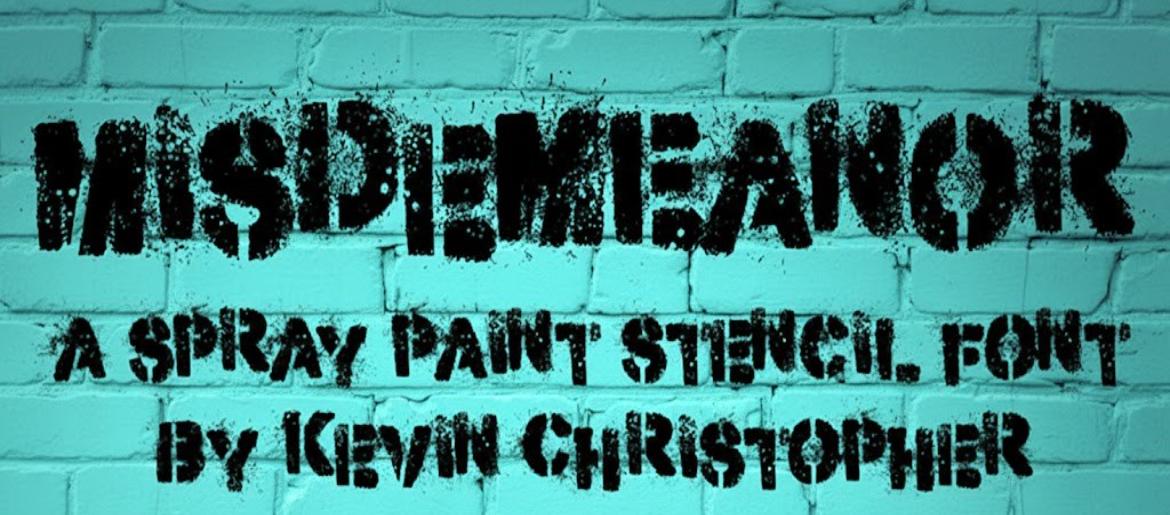
Misdemeanor Font
Misdemeanor Font is a stencil-style graffiti typeface inspired by Banksy aesthetics and street art culture. With rough edges and rebellious character, it’s ideal for posters, protest art, album covers, and urban designs that demand a bold, expressive impact.
➤ Font Name: Misdemeanor
➤ Designer: KC Fonts
➤ Style: Stencil